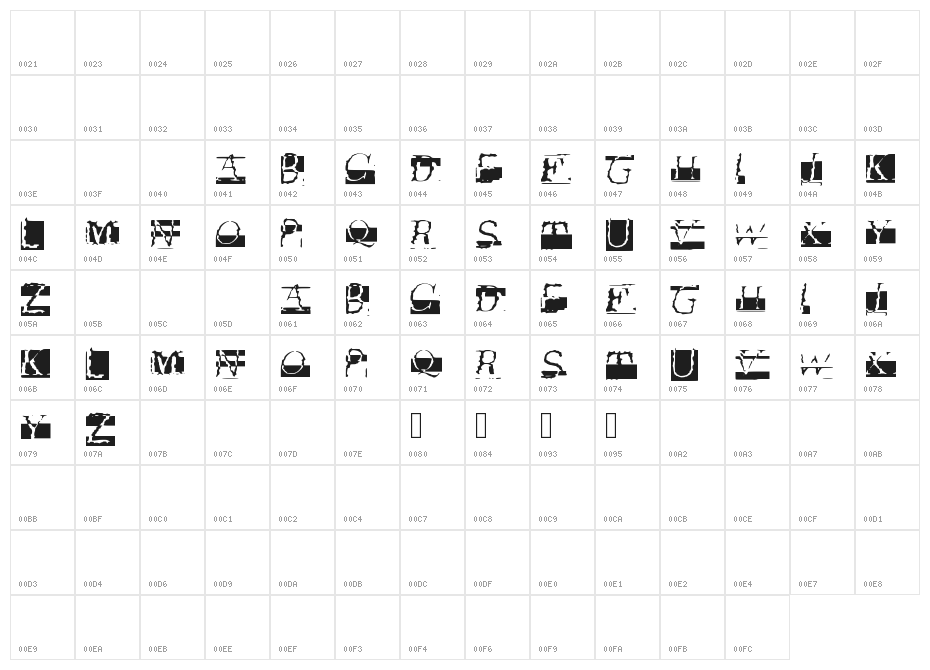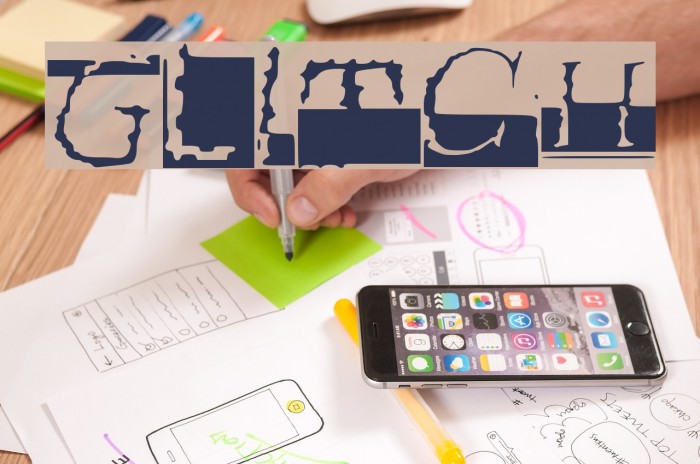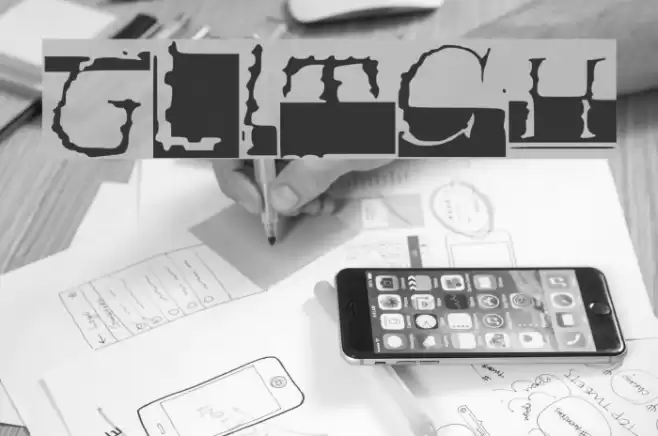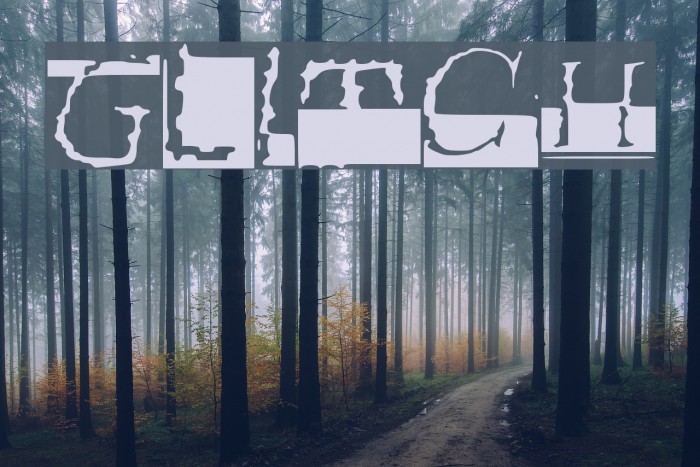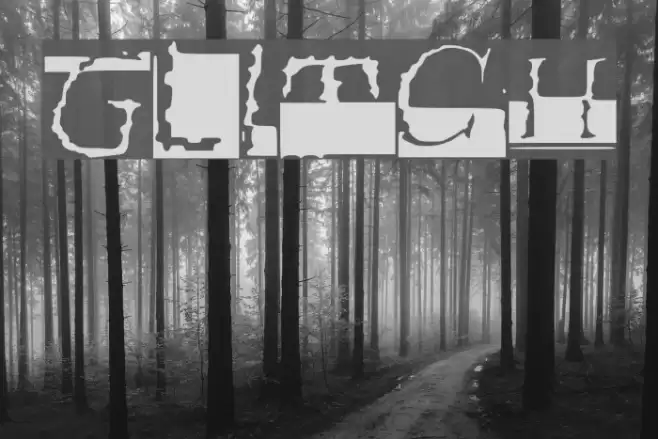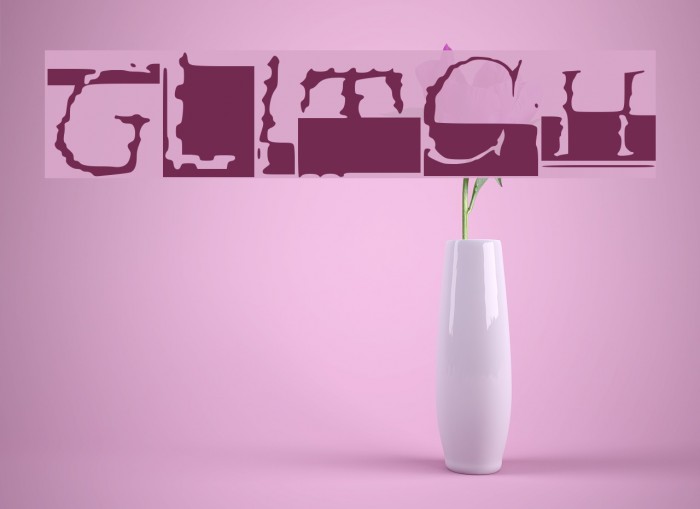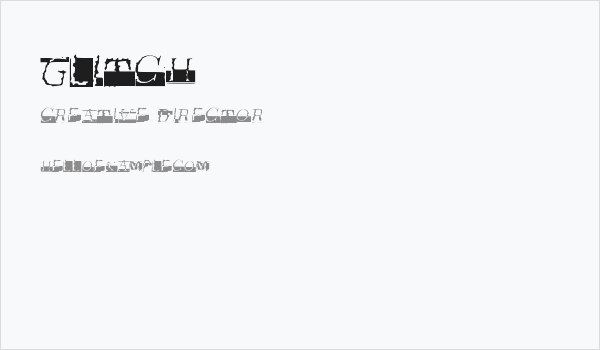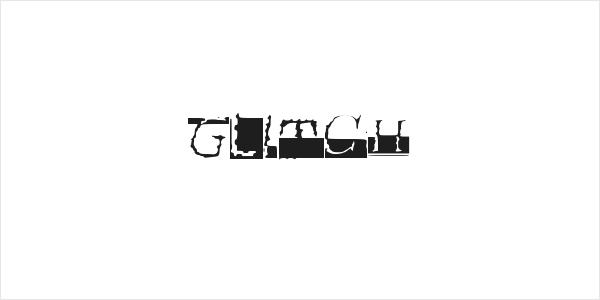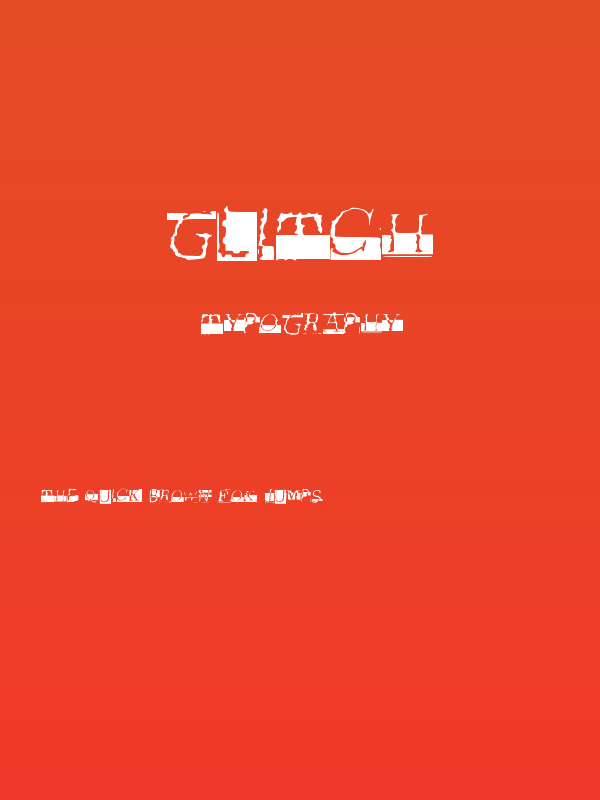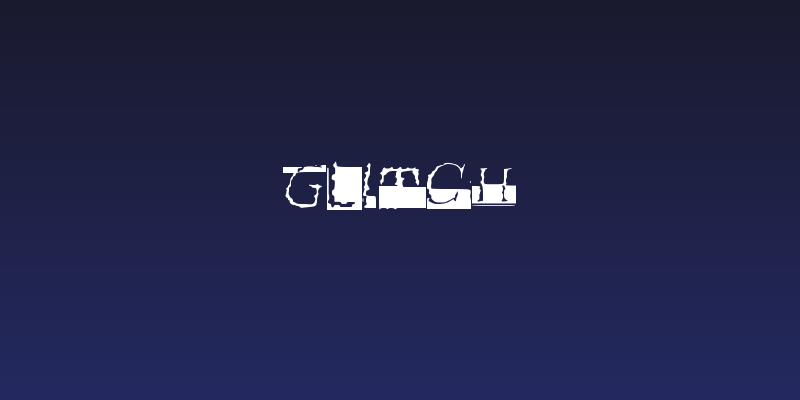
Glitch Font
Glitch Description
This font exhibits a distinct glitch effect, characterized by fragmented and distorted letterforms that create a sense of digital disruption. The uppercase and lowercase letters are heavily stylized, with irregular shapes and varying levels of opacity, giving the impression of a corrupted digital signal. The numbers and special characters follow the same aesthetic, maintaining the theme of distortion throughout the character set. This font is ideal for projects that aim to convey a futuristic or cyberpunk theme, as well as for designs that require a bold and unconventional visual impact.
| Overall Style | Modern, Futuristic |
| Proposed Projects | Ideal for digital art, cyberpunk themes, video game design, and futuristic branding. |